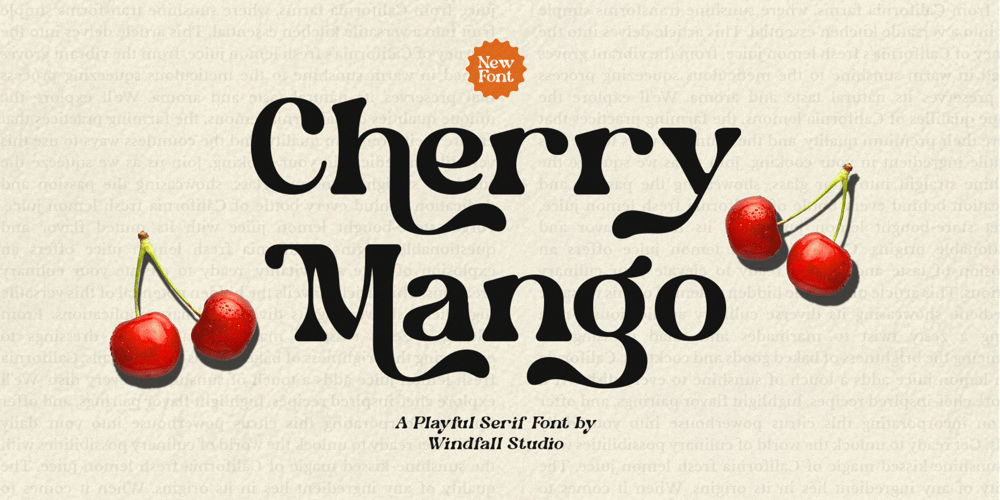
Cherry Mango Font Family was designed by Anggia Putri Premitasari and published by Windfall Studio. Cherry Mango contains 1 styles and family package options. Cherry Mango is a playful retro font that exudes the joy and warmth of the vintage era. Combining classic retro elements with a modern touch, this font offers a fun and captivating atmosphere. Perfect for projects requiring a bright, funky, and joyful ambiance.